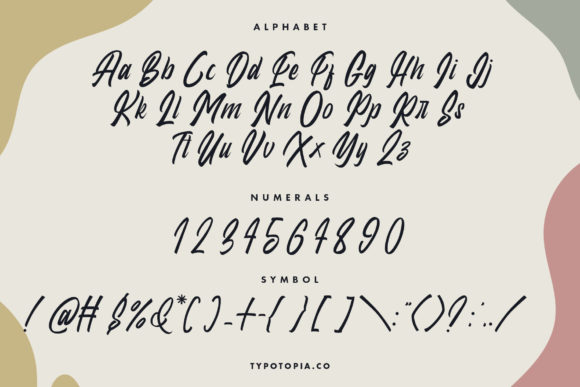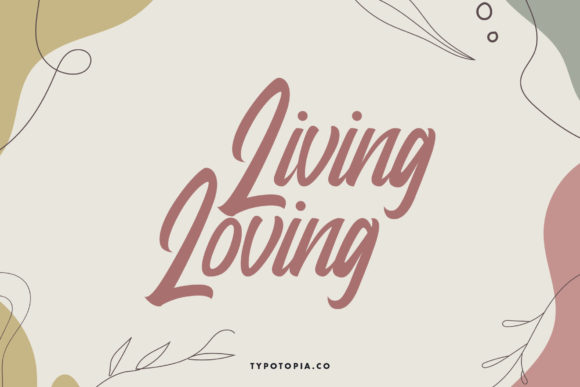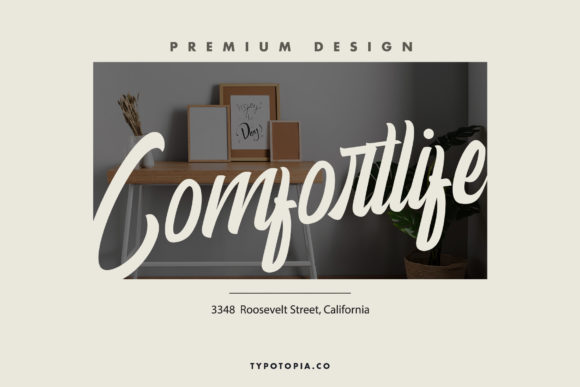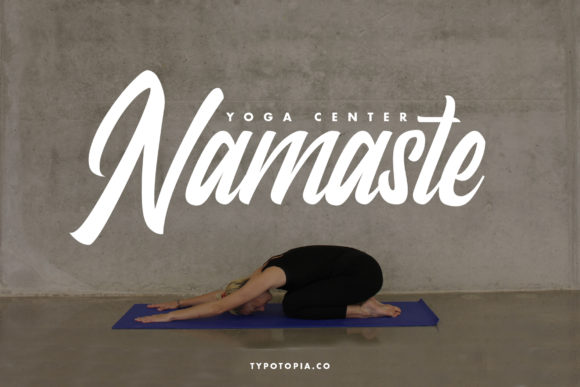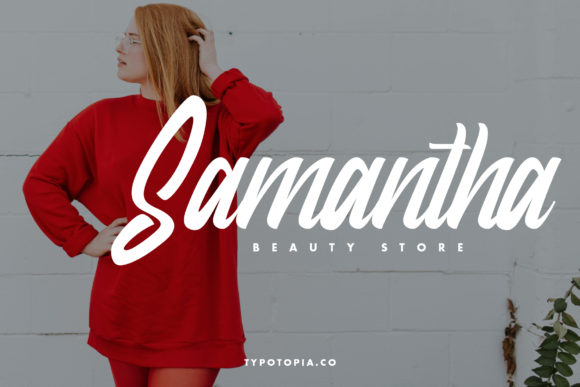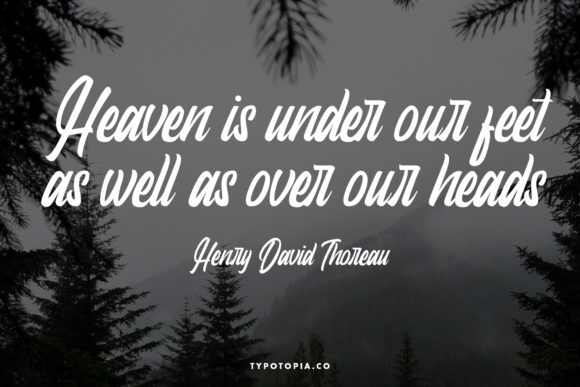
Dudley Font: A Modern Script Font with a Personal Touch
In the world of typography, fonts play a crucial role in conveying the tone and personality of a brand or design. For designers and crafters, finding the perfect font can be a daunting task. However, if you’re looking for a modern script font that adds a personal touch to your creations, look no further than Dudley Font. In this article, we’ll explore the features and benefits of Dudley Font, and why it’s an incredibly valuable asset to your font library.
The Story Behind Dudley Font
Dudley Font is a modern script font that was created with the help of a paint brush. This unique approach gives the font a distinctive, hand-crafted feel that’s perfect for designs that require a personal touch. The font’s creator aimed to develop a typeface that would be versatile and adaptable to various design projects, from branding and advertising to packaging and digital media.
Key Features of Dudley Font
So, what makes Dudley Font stand out from other script fonts? Here are some of its key features:
- Unique Brush Stroke Effect: Dudley Font’s brush stroke effect gives it a distinctive, hand-painted feel that’s perfect for designs that require a personal touch.
- Modern and Elegant: Despite its hand-crafted feel, Dudley Font is a modern and elegant script font that’s perfect for designs that require a touch of sophistication.
- Highly Versatile: Dudley Font is highly versatile and can be used for a wide range of design projects, from branding and advertising to packaging and digital media.
- Easy to Read: Despite its script style, Dudley Font is easy to read, making it perfect for body text and headlines.
Benefits of Using Dudley Font
So, why should you consider adding Dudley Font to your font library? Here are some benefits of using Dudley Font:
- Adds a Personal Touch: Dudley Font’s unique brush stroke effect adds a personal touch to your designs, making them stand out from the crowd.
- Elevates Your Designs: Dudley Font has the potential to elevate any creation, from a simple logo to a complex branding campaign.
- Time-Saving: With Dudley Font, you can create professional-looking designs in no time, saving you time and effort.
How to Use Dudley Font in Your Designs
Now that we’ve explored the features and benefits of Dudley Font, let’s talk about how to use it in your designs. Here are some tips:
- Pair it with Other Fonts: Dudley Font pairs well with other fonts, so don’t be afraid to experiment with different combinations.
- Use it for Headlines and Body Text: Dudley Font is easy to read, making it perfect for both headlines and body text.
- Experiment with Colors and Textures: Dudley Font’s brush stroke effect looks great with different colors and textures, so don’t be afraid to experiment.
In conclusion, Dudley Font is a modern script font that adds a personal touch to any design. With its unique brush stroke effect, modern and elegant style, and high versatility, Dudley Font is an incredibly valuable asset to your font library. Whether you’re a designer or crafter, Dudley Font is perfect for designs that require a touch of sophistication and personality. So, why not give it a try and see how it can elevate your creations?